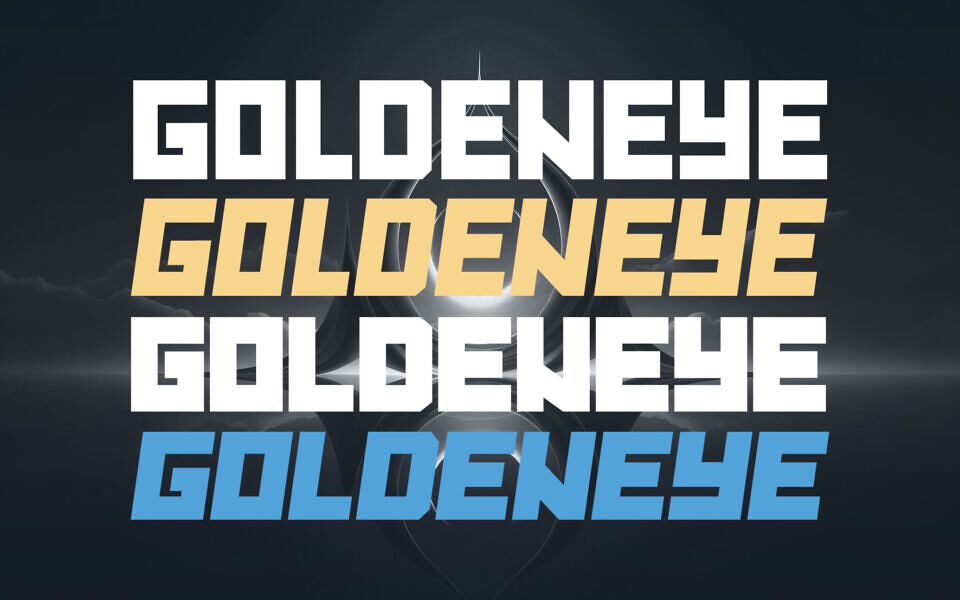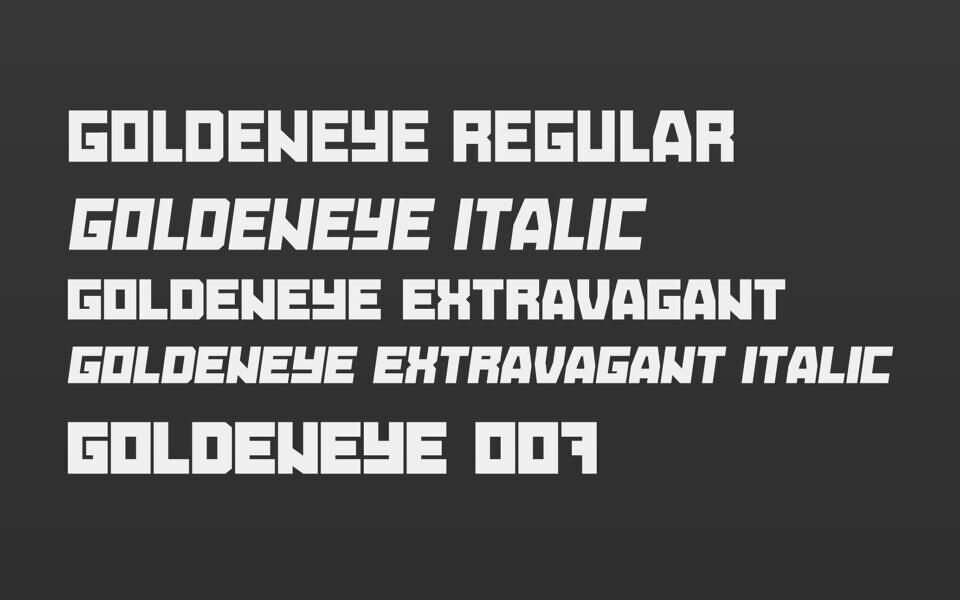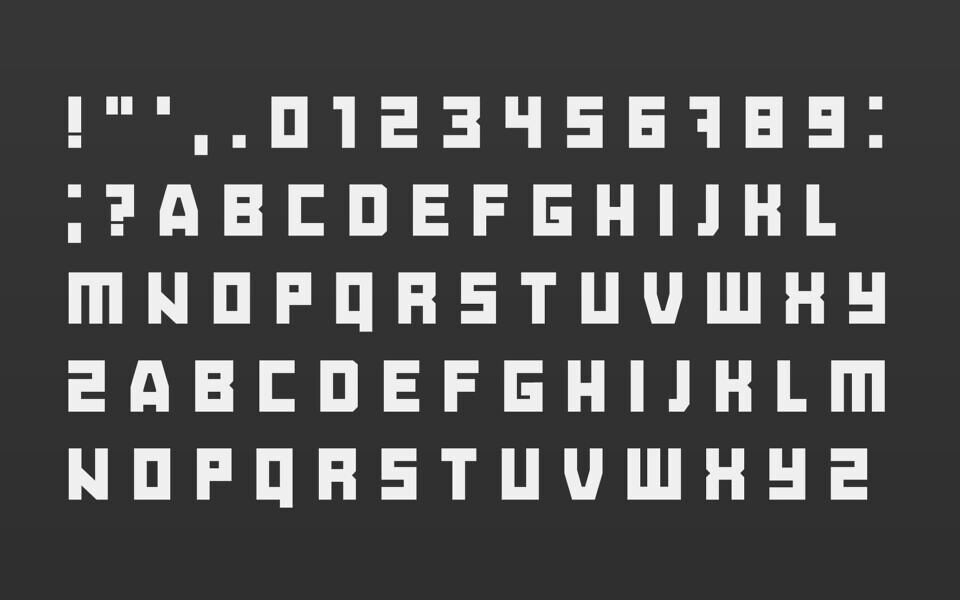
GoldenEye is a sleek, modern display typeface heavily inspired by the iconic James Bond movie franchise. Featuring sharp, geometric angles and distinctive stenciled cutouts, it perfectly captures a high-tech, espionage-thriller vibe. Its bold, futuristic silhouette makes it an excellent choice for action-packed titles, gaming logos, tech branding, and cinematic posters.